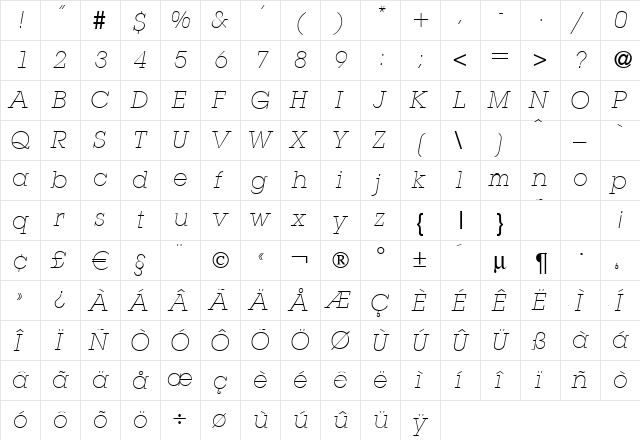
L850-Slab-Light Italic Font Preview
Design Context for L850-Slab-Light Typeface
L850-Slab-Light combines the readability of serif typography with the visual weight of a slab construction, resulting in a typeface that feels both authoritative and approachable. Its italic angle brings a sense of urgency and motion to the letterforms. Its slender proportions lend an understated elegance to any composition.
Works well in editorial design, news publishing, impactful branding, and poster typography.